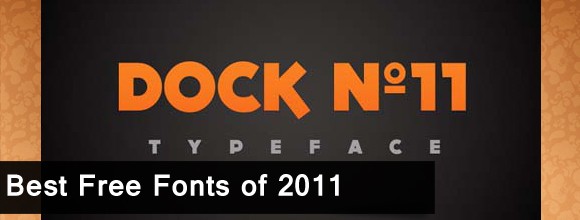
Best Free Fonts of 2011
Collator
Europe Underground
Coalition V.2
Haymaker
Shit Happens
Weston
Kuro
Cookie
Kilogram
Vastagurly
Calluna Sans
Maven Pro
CODE Pro
RBNo2
Minaeff Ect
Dock 11
Superficial
Carme
Melbourne
Infinity
Quaver Sans/Serif
Familiar Pro
RawengulkSans
Ostrich Sans
Polaris
Elega
Quattrocento Roman
Cony
Keytin Light
CoreHumanistSans
Filetto
All are attractive in looks, but i liked most the cookie, welcome and quaver because
of simplicity in form and coolness.